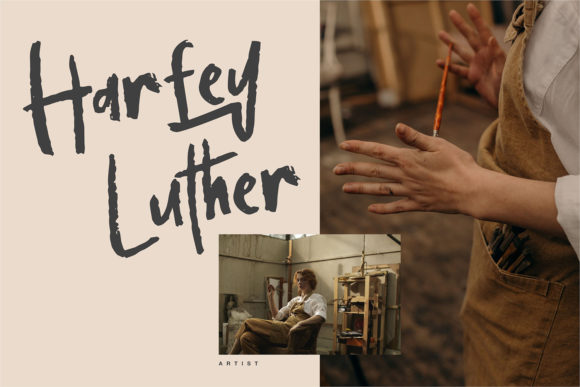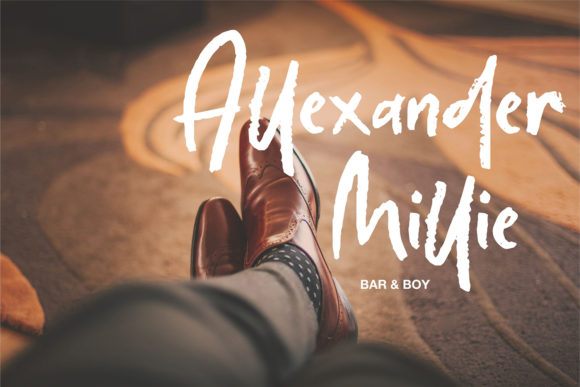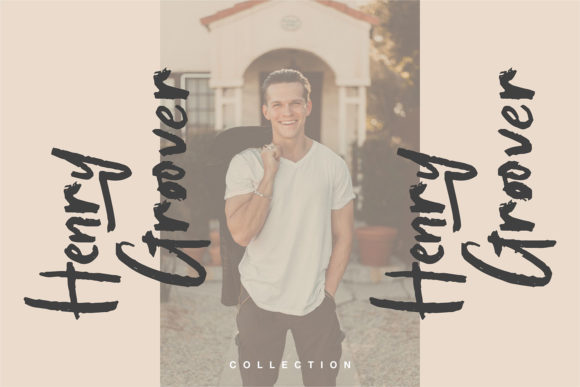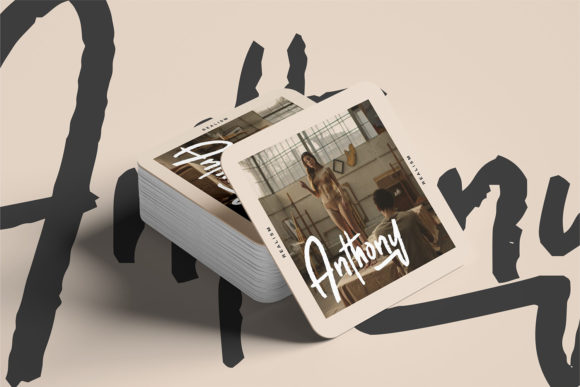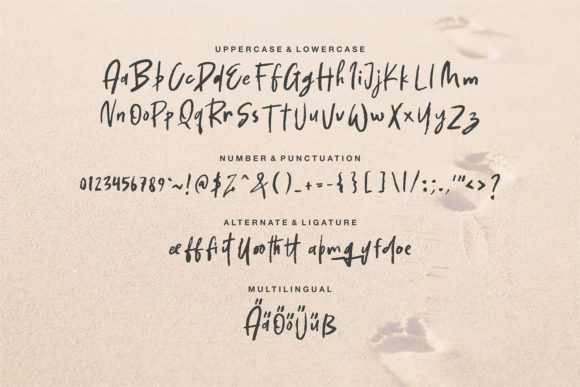
Introduction to Magill Font
You’ve spent hours pouring over your creative project, tweaking every detail, but something’s missing. The perfect font can make all the difference, elevating your design from good to great. For designers, finding that elusive font can be a game-changer, and that’s where the Magill Font comes in.
Imagine adding a rough, brushed texture to your design, giving it a unique, high-quality feel. The Magill Font is a display font that’s perfect for making a statement. Its transparent background allows it to blend seamlessly with your design, while its bold, creative vibe is sure to grab attention.
Key Features of Magill Font
- High-quality, elegant script font suitable for creative projects, ideal for wedding invitations, logos, and branding materials.
- Comes in a transparent background, allowing for seamless integration with various design elements and backgrounds.
- Features a high-resolution design, suitable for print and digital applications, with a resolution of 300 DPI or higher.
- Includes a range of ligatures and swashes, adding a touch of elegance and sophistication to any design project.
Honest Review: Magill Font
I recently stumbled upon the Magill Font and I must say, it’s a great addition to any designer’s toolkit. As a creative project, this font is perfect for those looking for a modern, clean aesthetic.
- Perfect for use in logos, branding materials, and other design elements ✨
- May not be suitable for projects requiring a bold, eye-catching font ⚠️
- Some users may find the font too minimalist ⚠️
Overall, I’m impressed with the Magill Font. It’s a great design resource that’s perfect for those looking for a clean, modern aesthetic. While it may not be suitable for every project, it’s definitely worth considering for your next creative endeavor.
The Magill Font is perfect for a variety of creative projects, including brochures, business cards, and presentations. It is also great for creating a high-quality design for your website or social media channels.